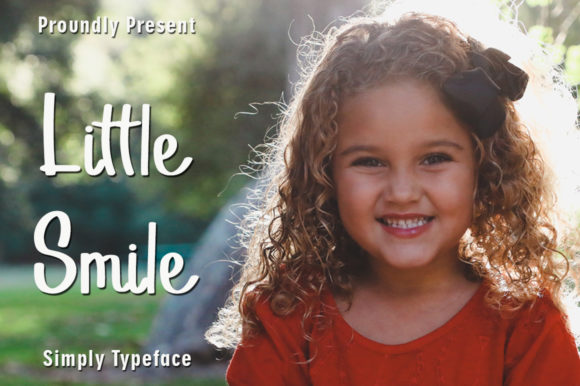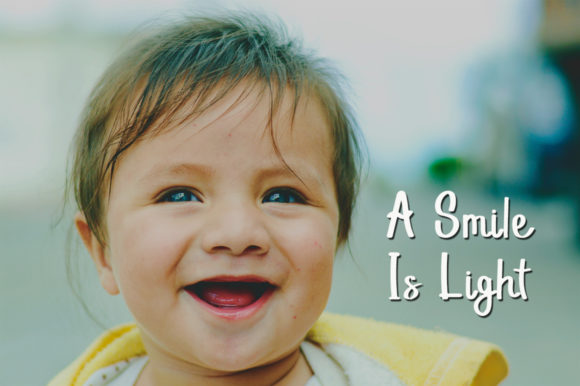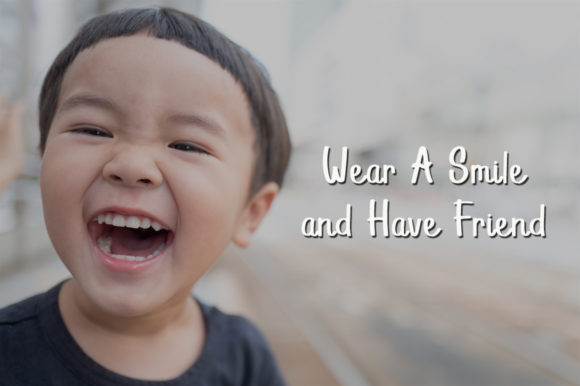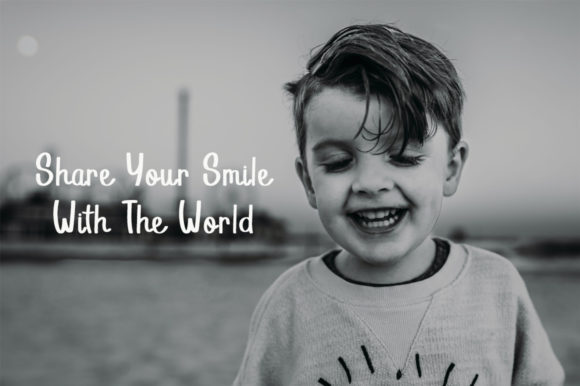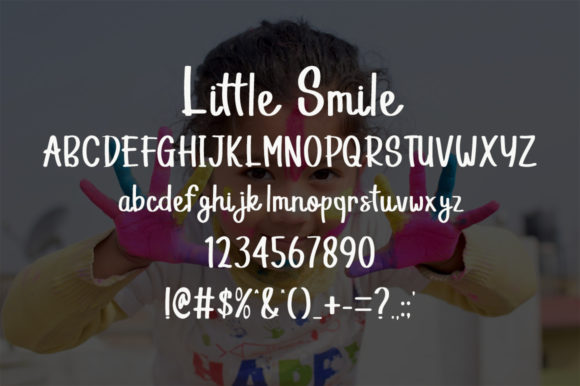
Little Smile Font
About Little Smile Font
Little Smile is a sweet and friendly handwritten font. Its natural and unique style makes it incredibly fitting to a large pool of designs. The only limit is your imagination!